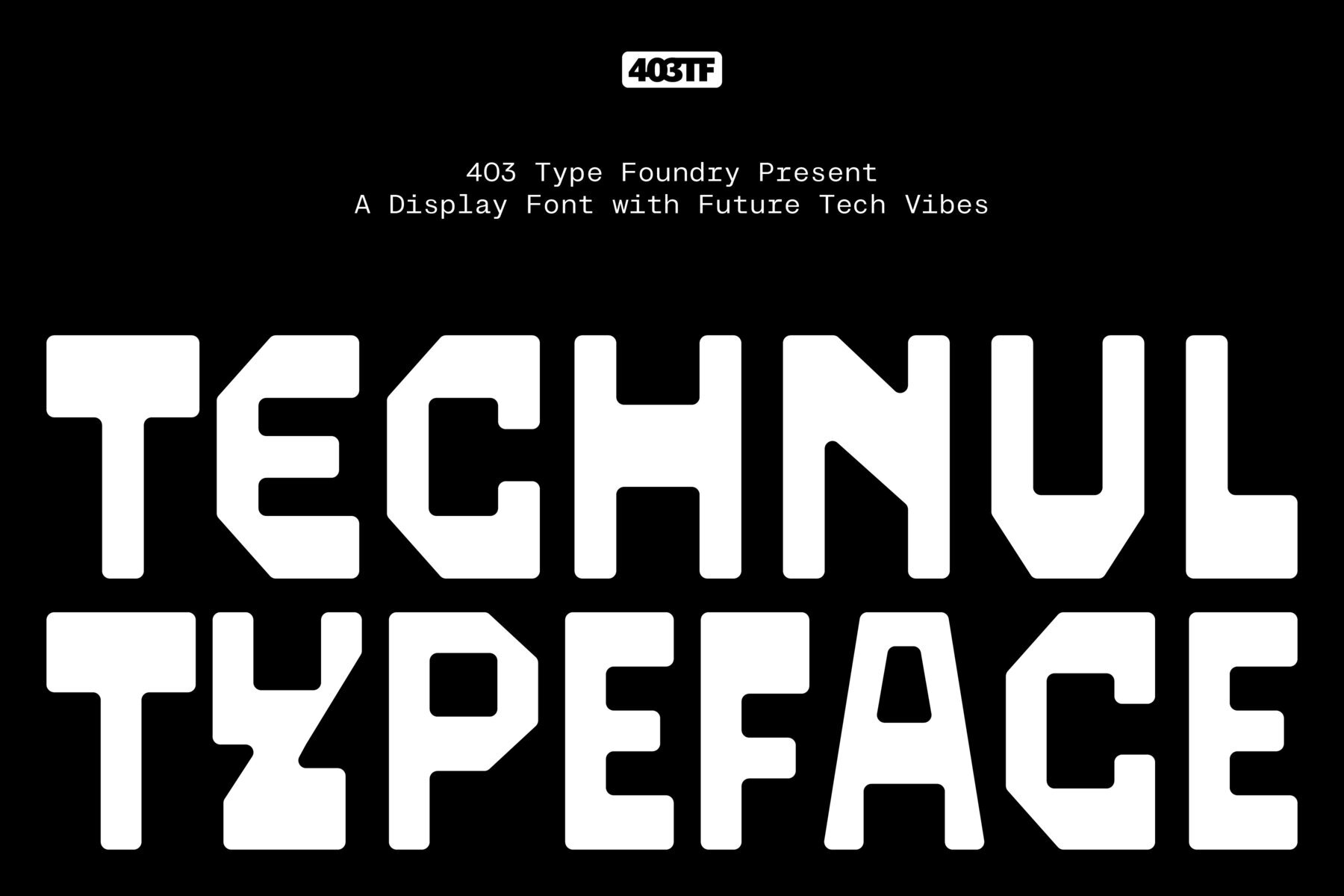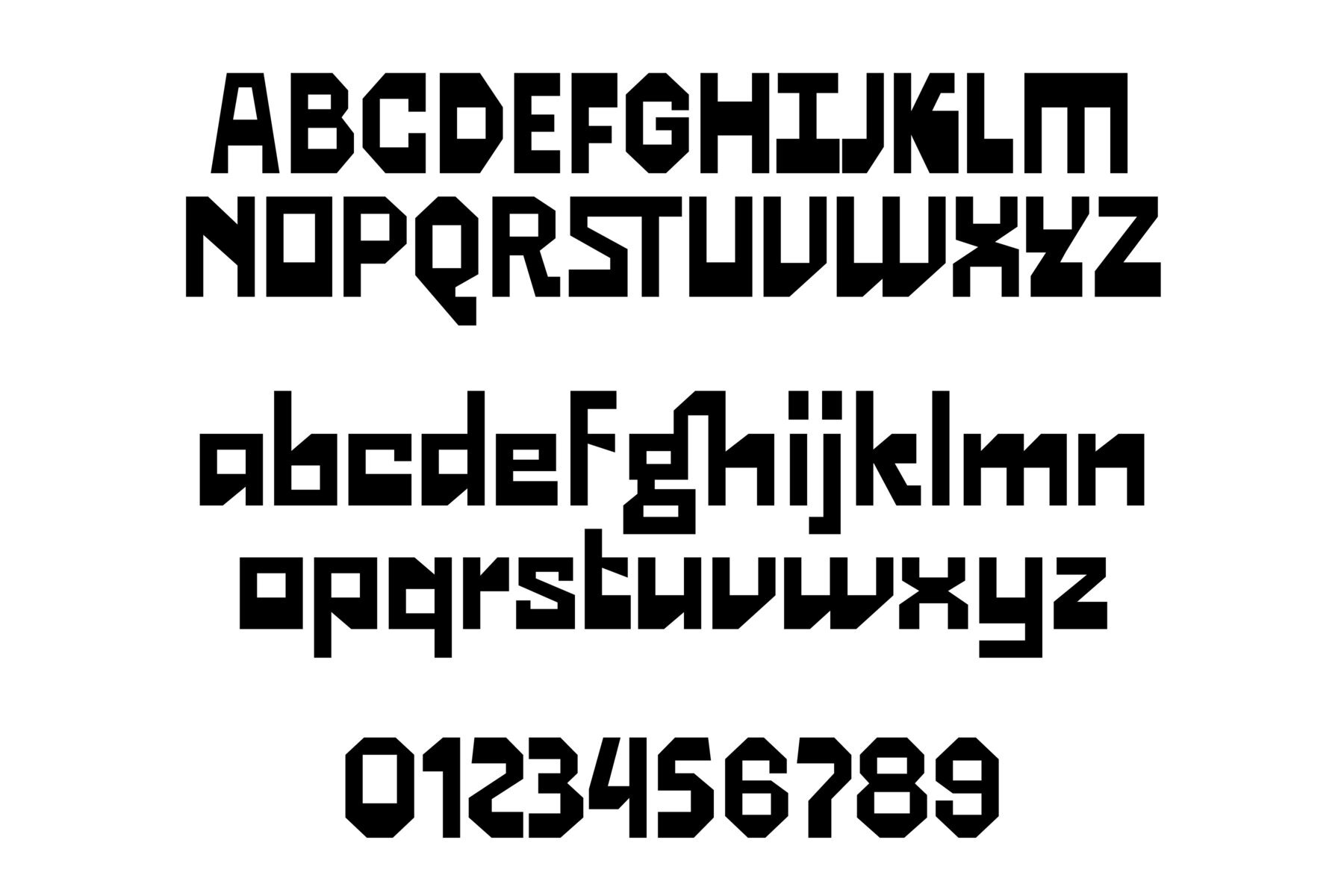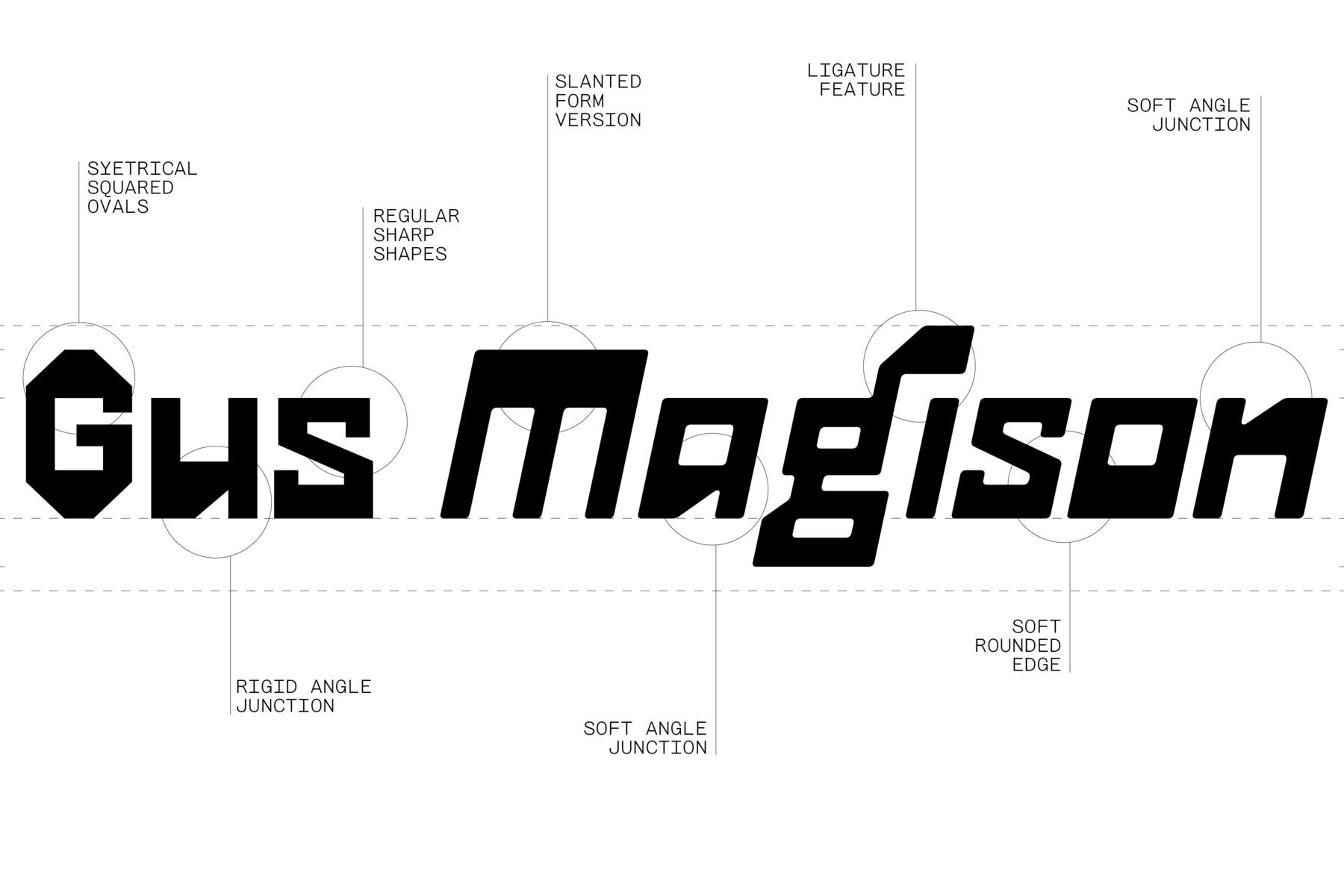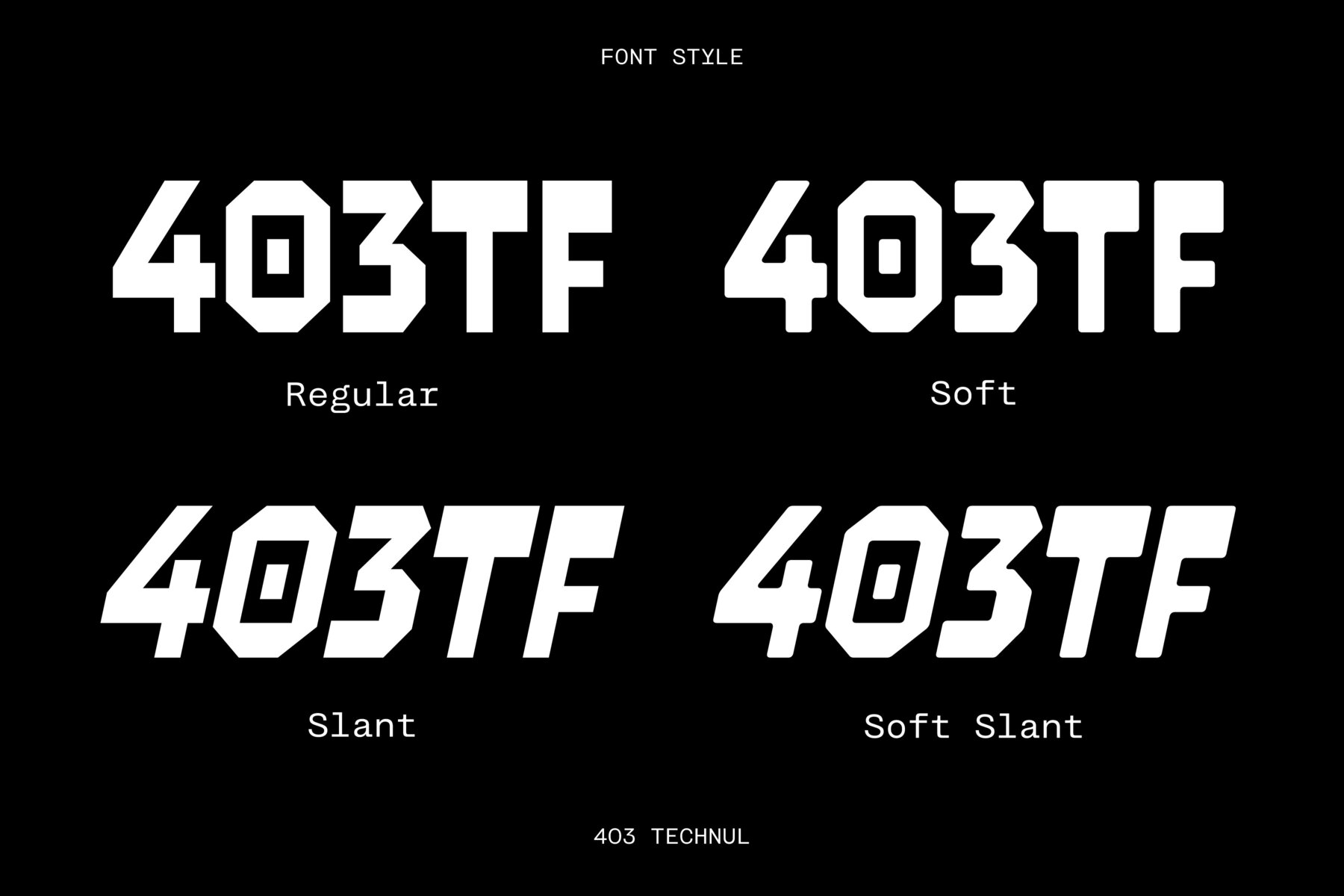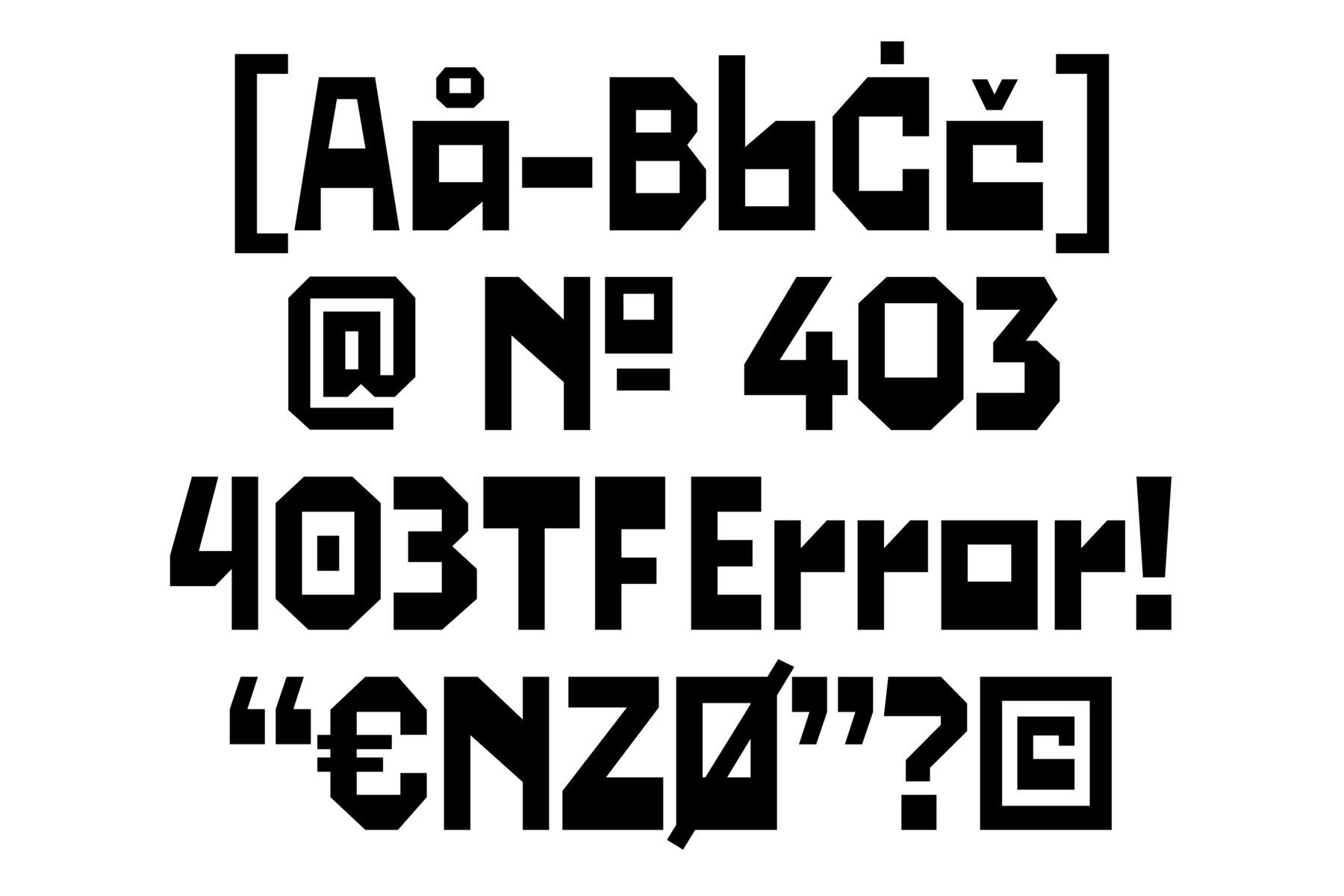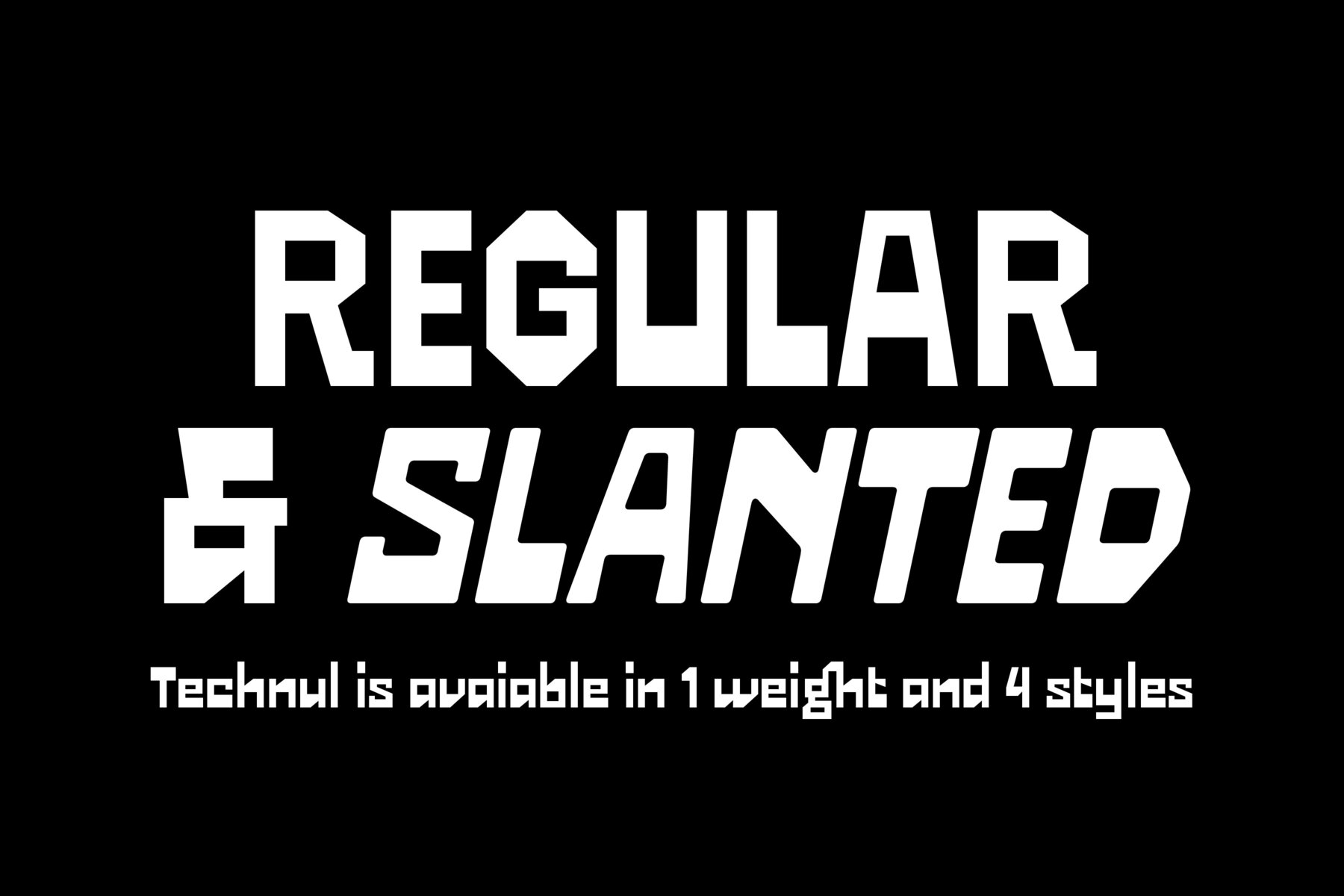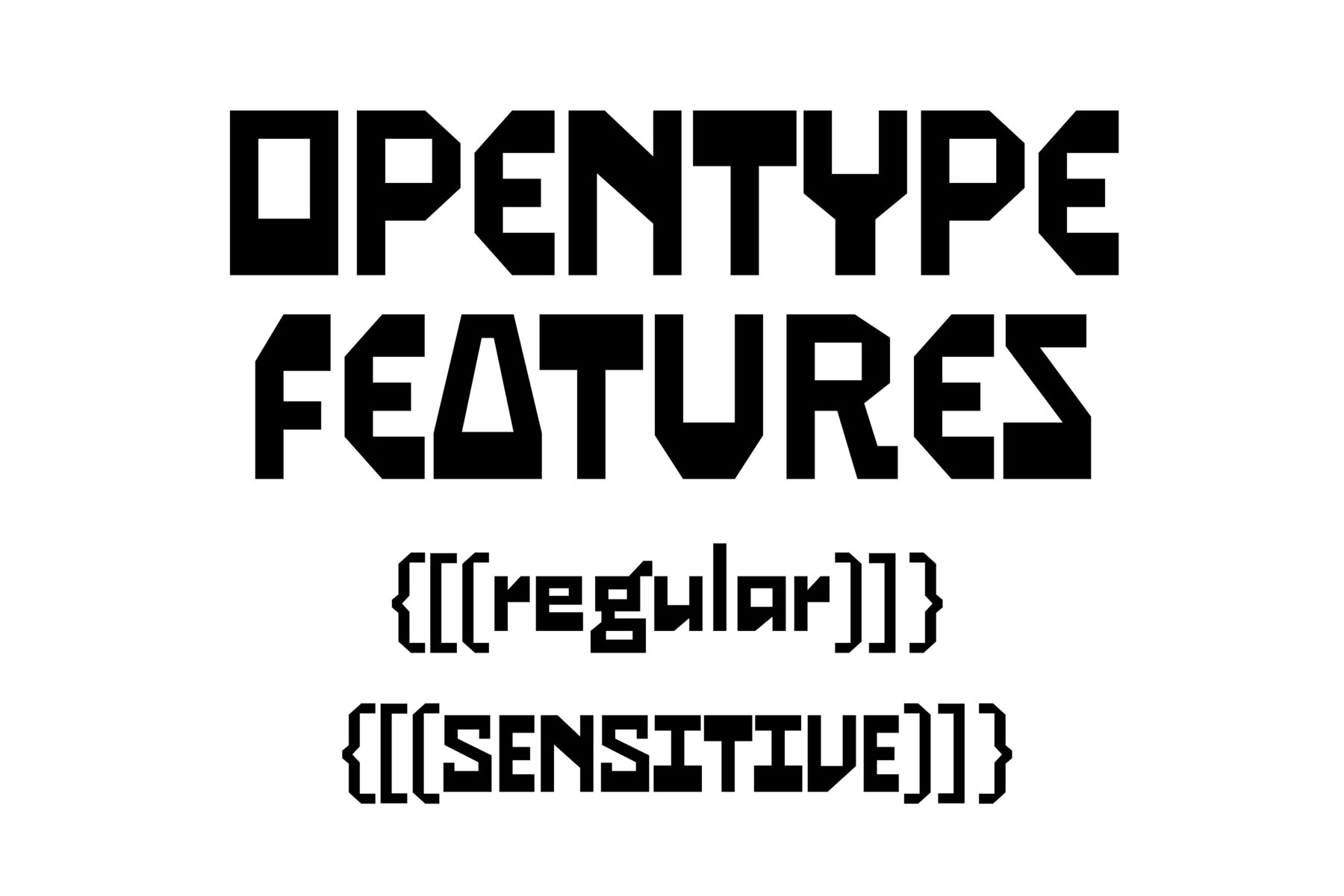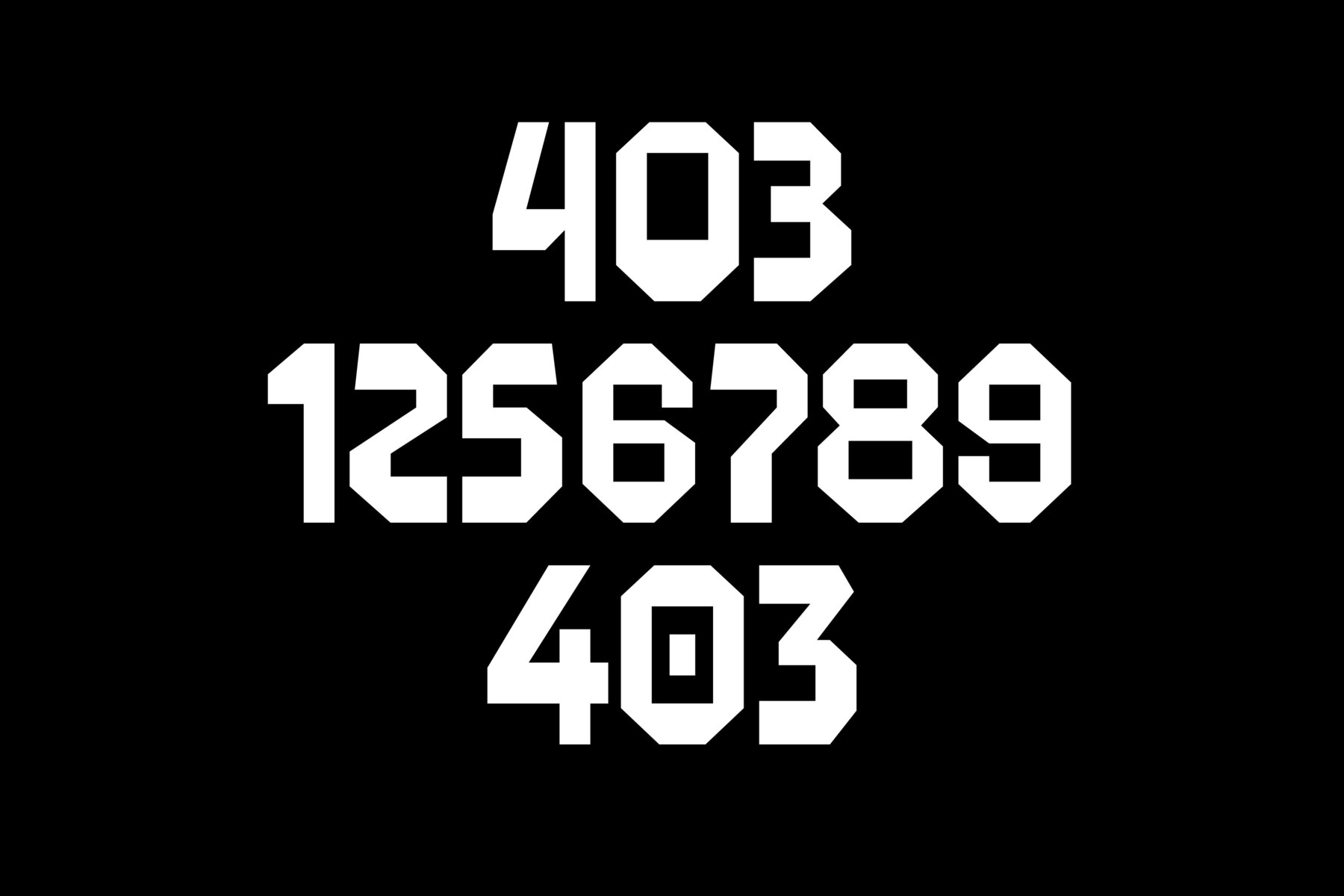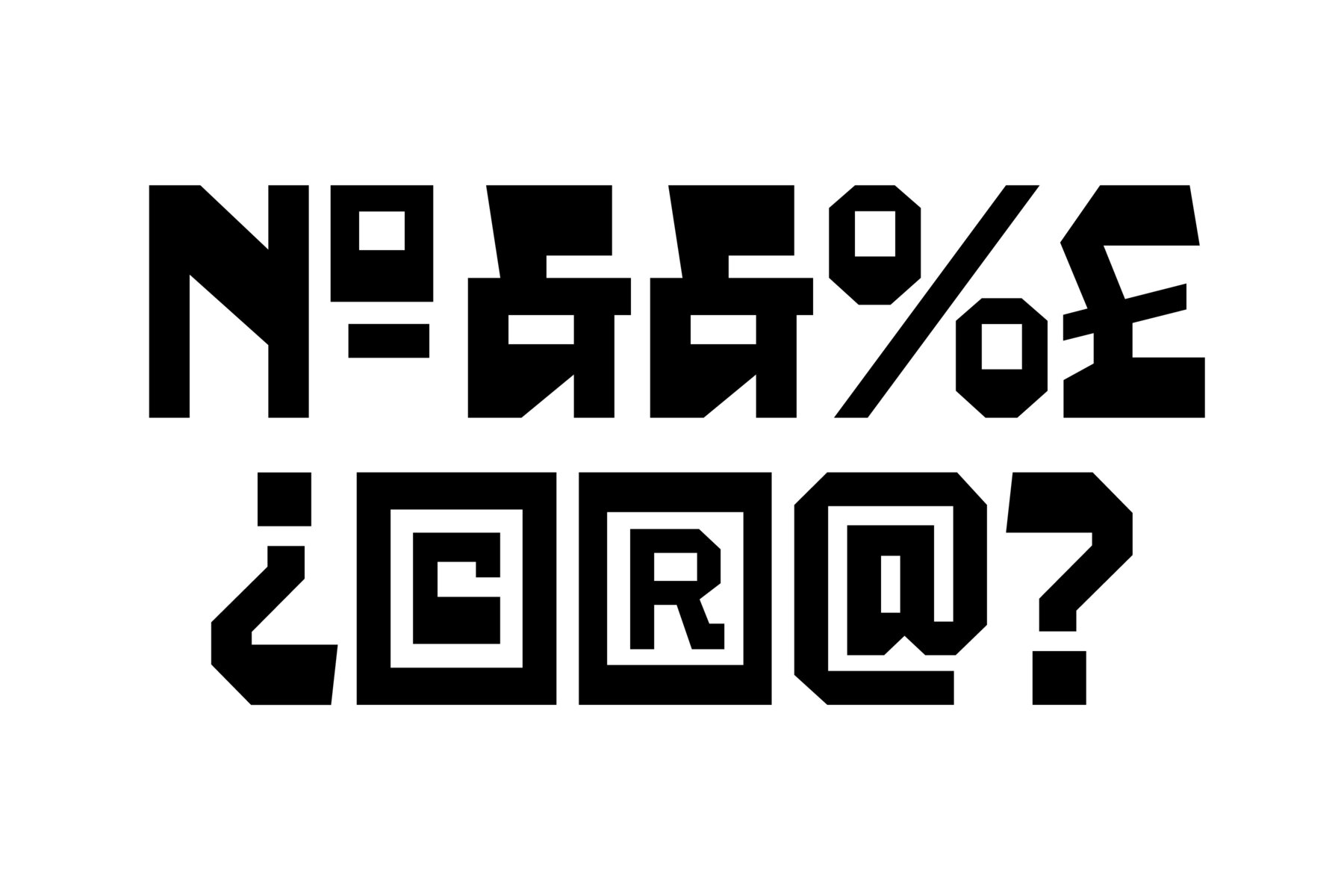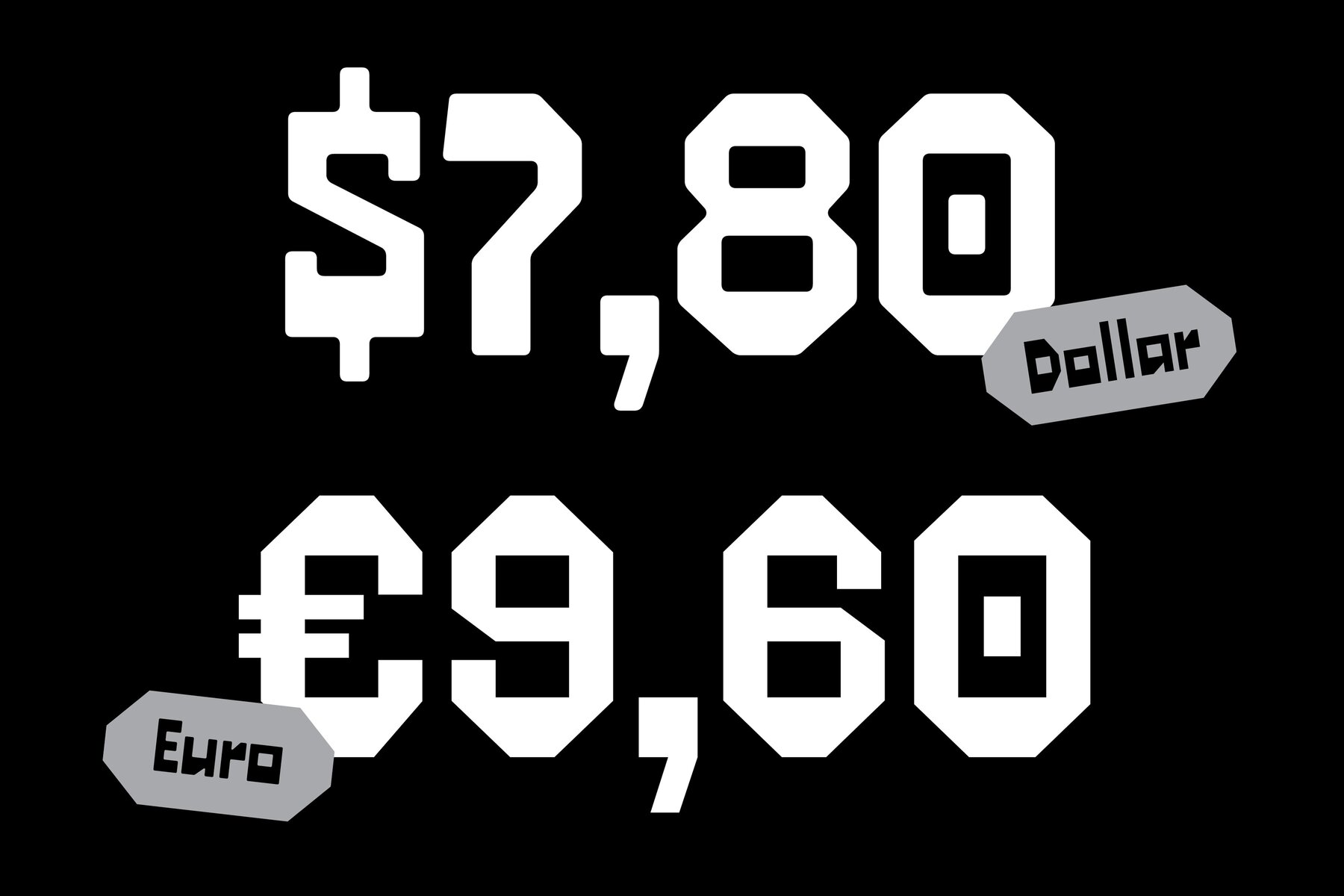
403 Technul Font
403 Technul is a cutting-edge display font that captures the essence of future-tech aesthetics, perfect for headlines, posters, and any bold statement. This experimental typeface stands out with its unique styles: the Regular style features sharp, rigid corners for a modern look, while the Soft style offers smooth, rounded corners for a more approachable feel. The Slanted style adds a dynamic, forward-leaning twist to your text. With multilingual support and OpenType features, 403 Technul ensures your message reaches a global audience with advanced typographic options. Whether you're crafting a futuristic brand identity or an eye-catching event poster, 403 Technul provides the versatility and innovation you need to make an impact.